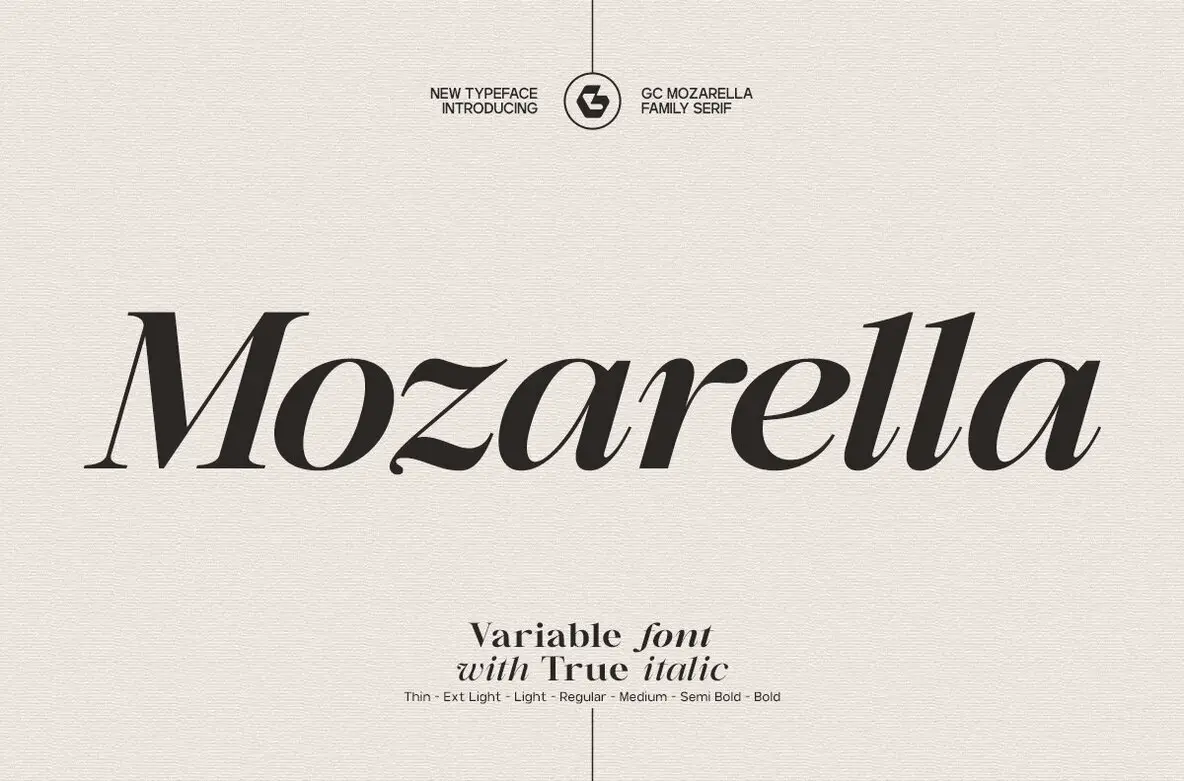
GC Mozarella Font
GC Mozarella is an elegant serif font designed for creative professionals who appreciate timeless sophistication. Blending graceful curves, refined contrast, and carefully executed italics, it strikes a balance between classical beauty and contemporary aesthetics. Its concise proportions and restrained detailing support both expressive headlines and understated body text. Suitability is central to GC Mozarella. Whether applied to editorial layouts, luxury packaging, or fashion branding, this serif delivers warmth and clarity across various design settings. Its versatility adapts seamlessly to modern and classic visual identities, ensuring a distinctive typographic voice. Precision in each letterform lends both charm and confidence.GC Mozarella: Refined Serif for Editorial and Branding Excellence